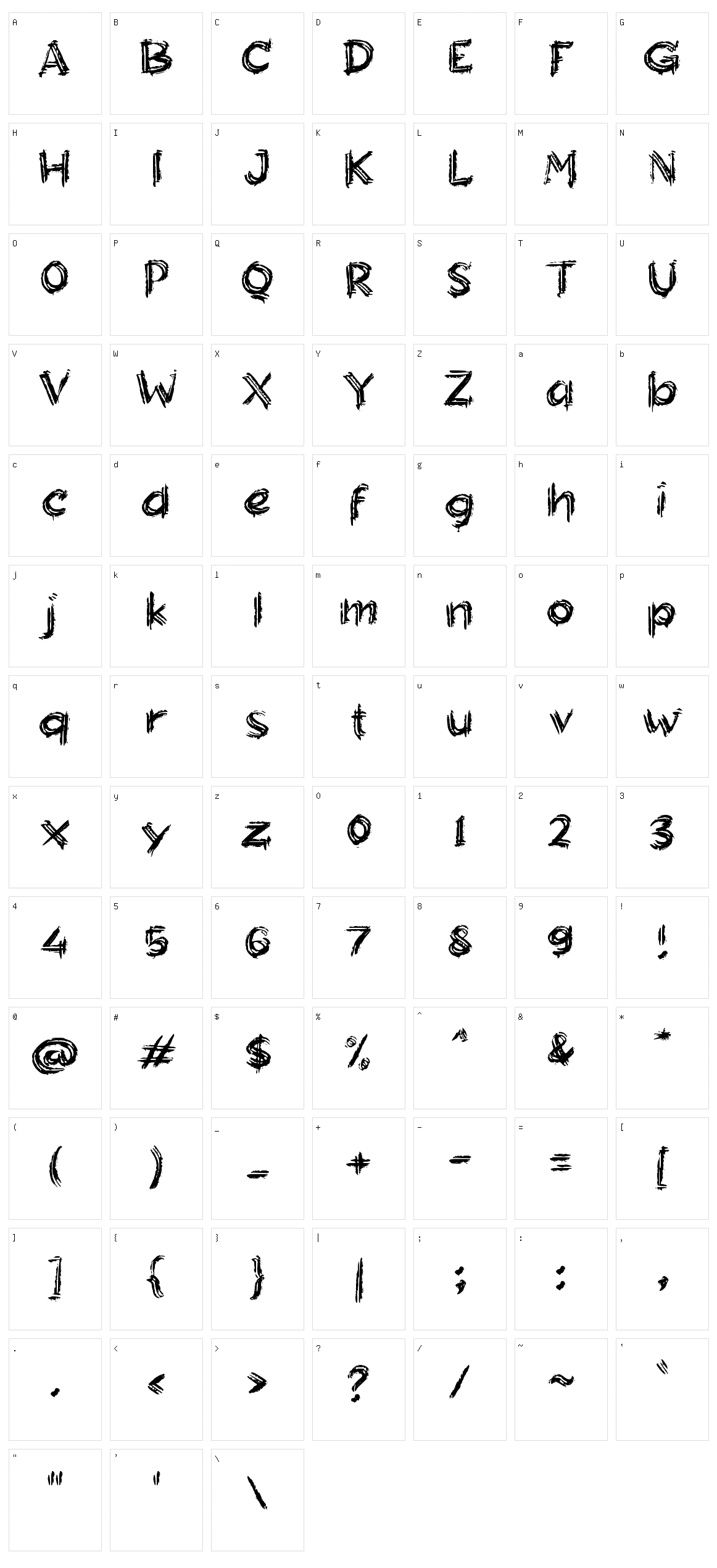
The free font Darah Revolusi is carefully designed by wep, showcasing a thoughtful balance of creativity and usability and falls under the Eroded font style. When you download the ZIP file, it contains only 64.3 KB of font files, making it lightweight and quick to download. Please review the license details below to understand permitted usage and distribution rights. If license information is not available, we recommend using this font for personal projects only or contacting the author directly for commercial usage permissions.